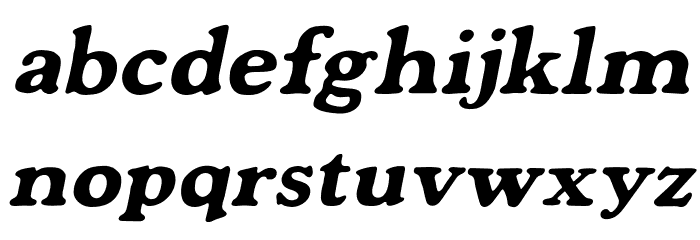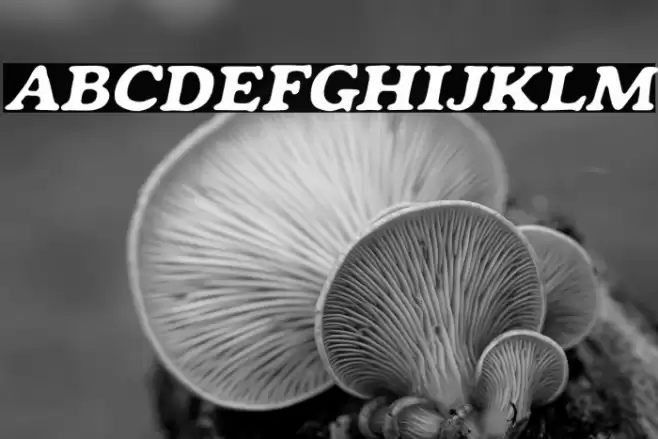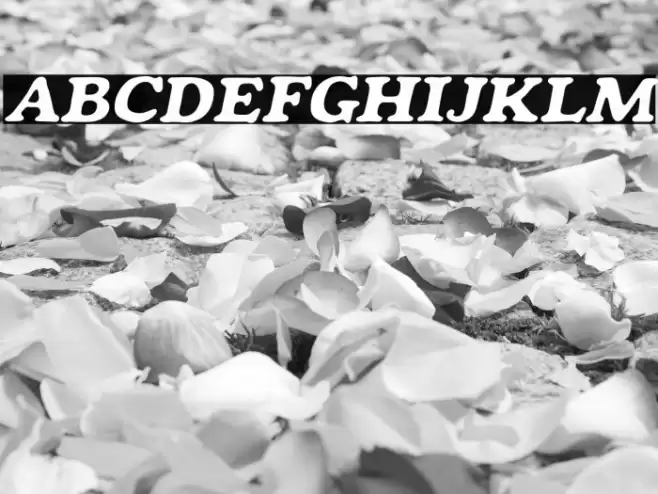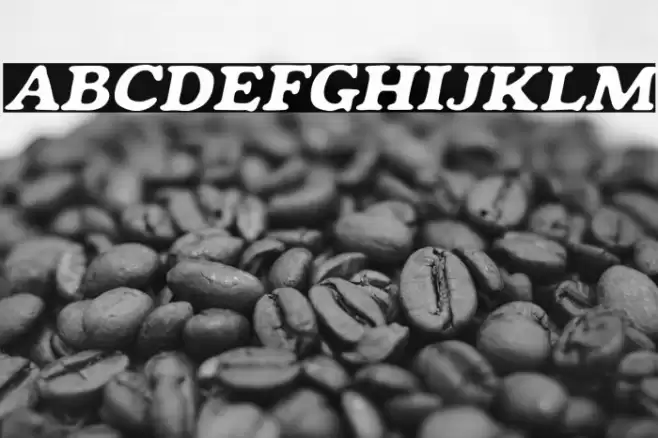
Mondeur-Italic Font
This font features a classic serif style with a distinct italic slant, giving it an elegant and sophisticated appearance. The characters are well-defined with moderate stroke contrast, making them highly legible while maintaining a stylish flair. The uppercase letters are bold and commanding, while the lowercase letters retain a softer, more approachable feel. The numerals and special characters are consistent with the overall design, ensuring a cohesive look across all text. This font is suitable for projects that require a touch of elegance and tradition, such as formal invitations, editorial layouts, or branding materials.
An elegant serif font with an italic slant and moderate contrast.
- Proposed Projects: Ideal for formal invitations, editorial layouts, and branding materials.
- Overall Style: Classic